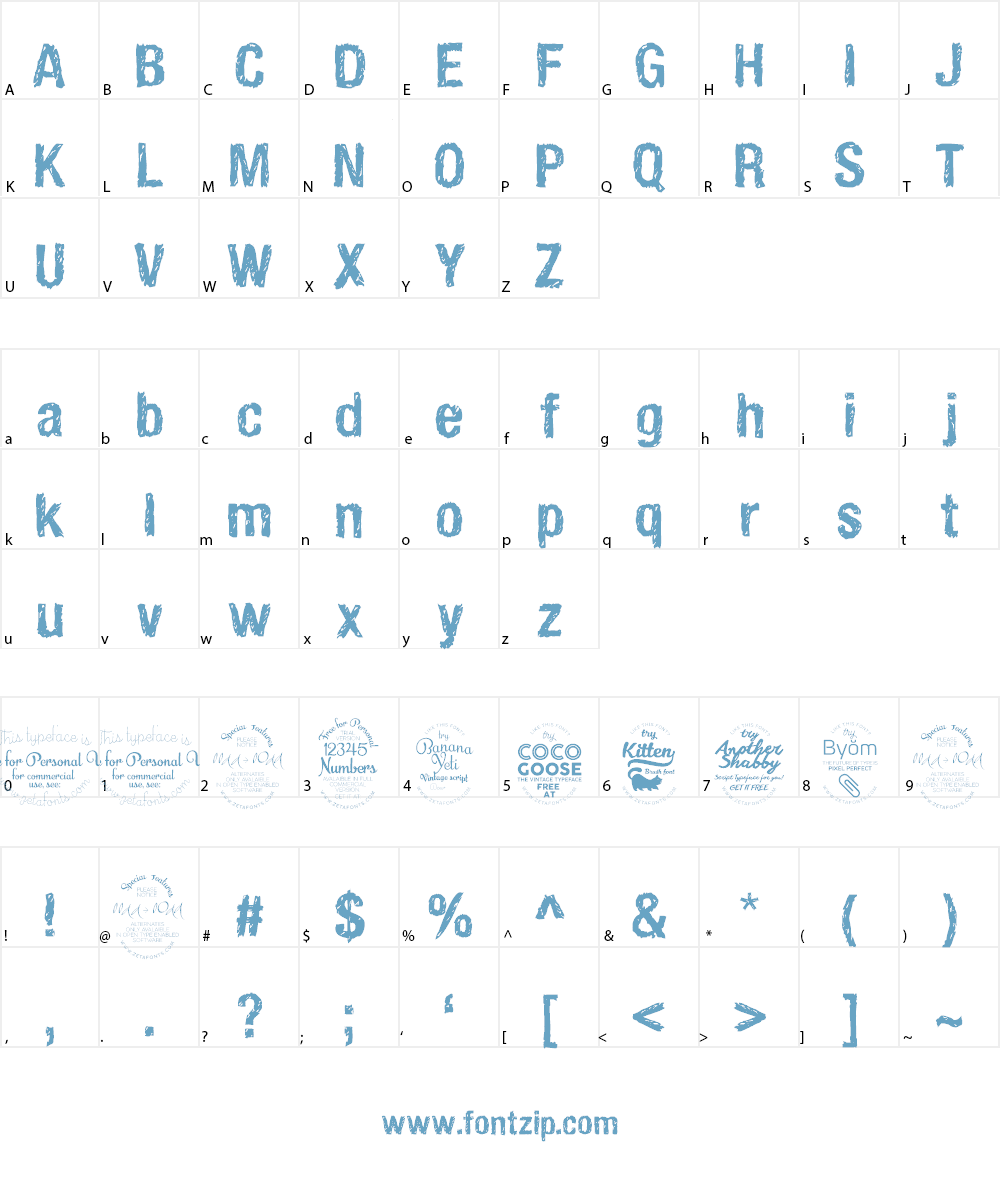
Handvetica Neue is a hand drawn sans serif typeface designed by Cosimo Lorenzo Pancini and inspired by the look of classic modernist typefaces. It covers over 40 languages that use the Latin alphabet, with full range of accents and diacritics, and comes in two weights (light and regular) and a condensed version (Handvetica Neue Condensed, released in 2008 as ""Handvetica"").http://www.zetafonts.com/handvetica